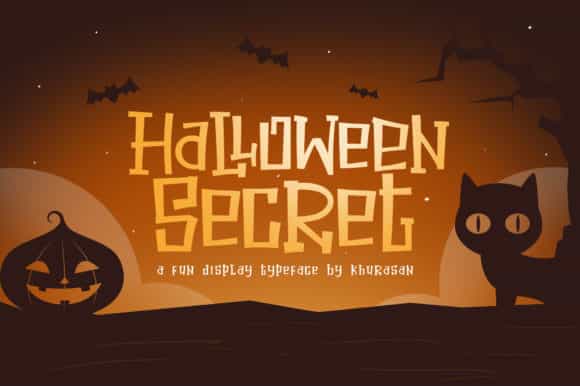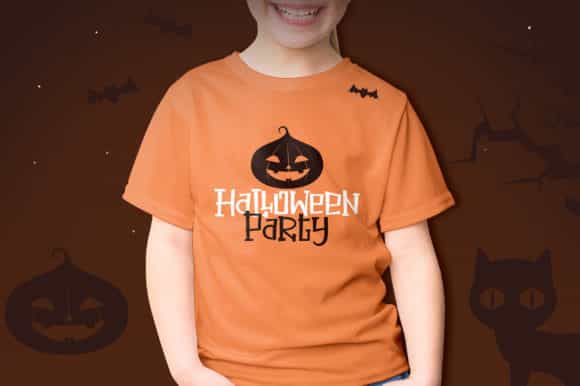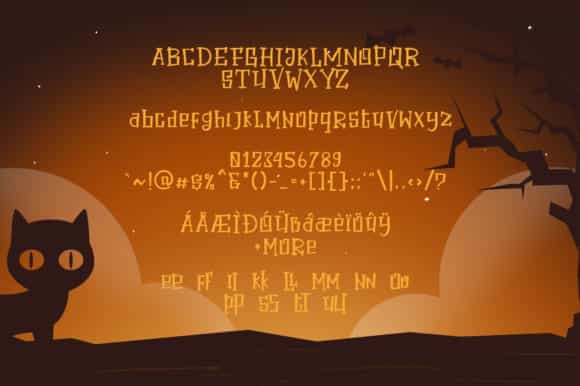
Halloween Secret celebrates all things scary: It is perfect for the display typeface in any gory Halloween themed project that one may be engaging in.